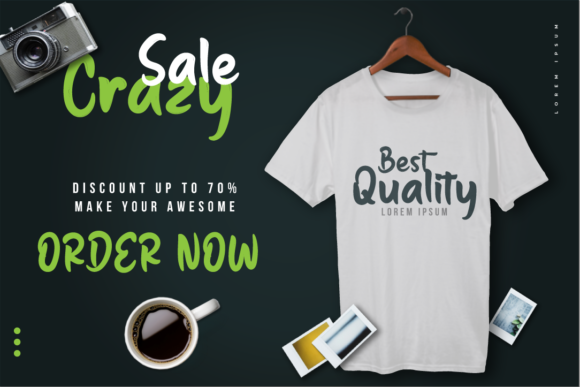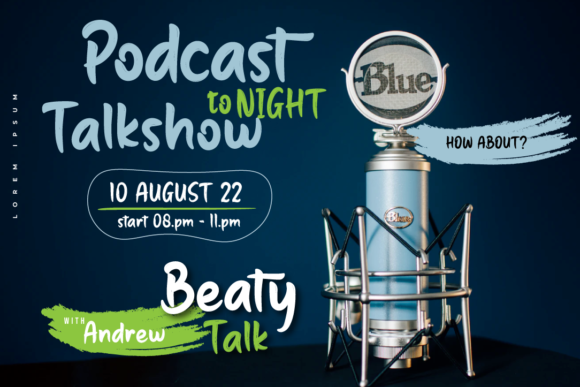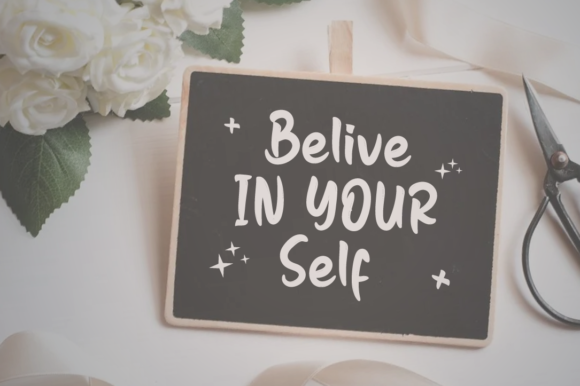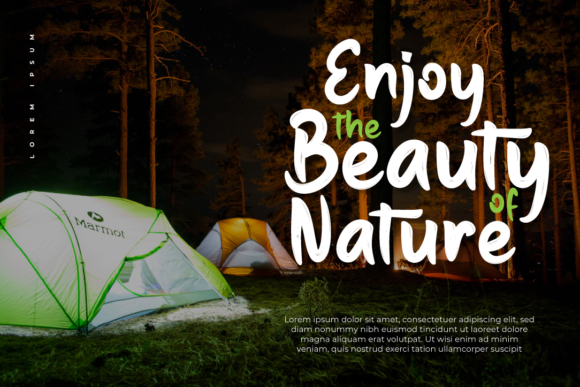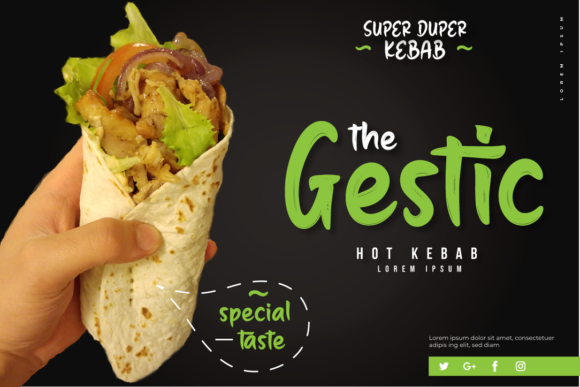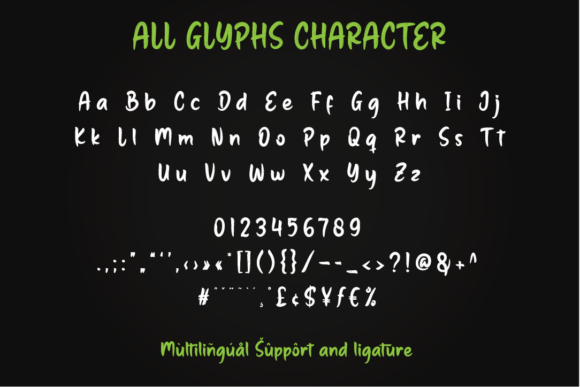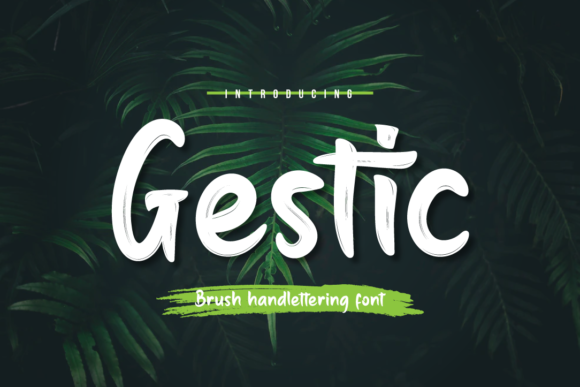
Gestic Font: The Ultimate Brush Handwritten Font for Outstanding Designs
Are you a designer or crafter looking for a unique and creative font to elevate your designs? Look no further than Gestic Font, a beautiful brush handwritten font that’s perfect for making original and outstanding designs. In this article, we’ll explore the features and benefits of Gestic Font, and show you how it can be used to take your designs to the next level.
What is Gestic Font?
Gestic Font is a brush handwritten font that’s designed to add a personal touch to your designs. With its unique and expressive lettering style, Gestic Font is perfect for creating eye-catching designs that stand out from the crowd. Whether you’re working on a branding project, creating a poster or banner, or designing a product label, Gestic Font is the perfect choice.
Features of Gestic Font
Gestic Font has a range of features that make it the perfect choice for designers and crafters. Some of its key features include:
- Unique and expressive lettering style: Gestic Font has a distinctive brush handwritten style that’s perfect for creating eye-catching designs.
- High-quality design: Gestic Font is designed with high-quality craftsmanship in mind, ensuring that your designs look professional and polished.
- Versatile: Gestic Font is perfect for a wide range of design projects, from branding and advertising to posters, banners, and packaging.
- Easily readable: Despite its unique style, Gestic Font is easily readable, making it perfect for use in a variety of contexts.
Uses for Gestic Font
Gestic Font is a versatile font that can be used in a wide range of design projects. Some of the most popular uses for Gestic Font include:
- Branding: Gestic Font is perfect for creating unique and memorable brand identities.
- Advertising: Gestic Font can be used to create eye-catching adverts that stand out from the crowd.
- Posters and banners: Gestic Font is perfect for creating bold and eye-catching posters and banners.
- Packaging: Gestic Font can be used to create unique and eye-catching packaging designs.
- Podcasts: Gestic Font can be used to create eye-catching podcast artwork.
- Outdoor activities: Gestic Font is perfect for creating designs for outdoor activities, such as hiking or biking.
- Apparel: Gestic Font can be used to create unique and eye-catching apparel designs.
- Quotes: Gestic Font is perfect for creating inspirational and motivational quotes.
- Beverages: Gestic Font can be used to create unique and eye-catching designs for beverage packaging.
Benefits of Using Gestic Font
There are many benefits to using Gestic Font in your designs. Some of the most significant benefits include:
- Unique and original designs: Gestic Font allows you to create unique and original designs that stand out from the crowd.
- Increased creativity: Gestic Font’s expressive lettering style can help to inspire your creativity and take your designs to the next level.
- Professional-looking designs: Gestic Font’s high-quality design ensures that your designs look professional and polished.
- Easy to use: Gestic Font is easy to use and can be easily integrated into your design workflow.
In conclusion, Gestic Font is a beautiful brush handwritten font that’s perfect for making original and outstanding designs. With its unique and expressive lettering style, high-quality design, and versatility, Gestic Font is the perfect choice for designers and crafters looking to take their designs to the next level. Whether you’re working on a branding project, creating a poster or banner, or designing a product label, Gestic Font is the perfect choice.